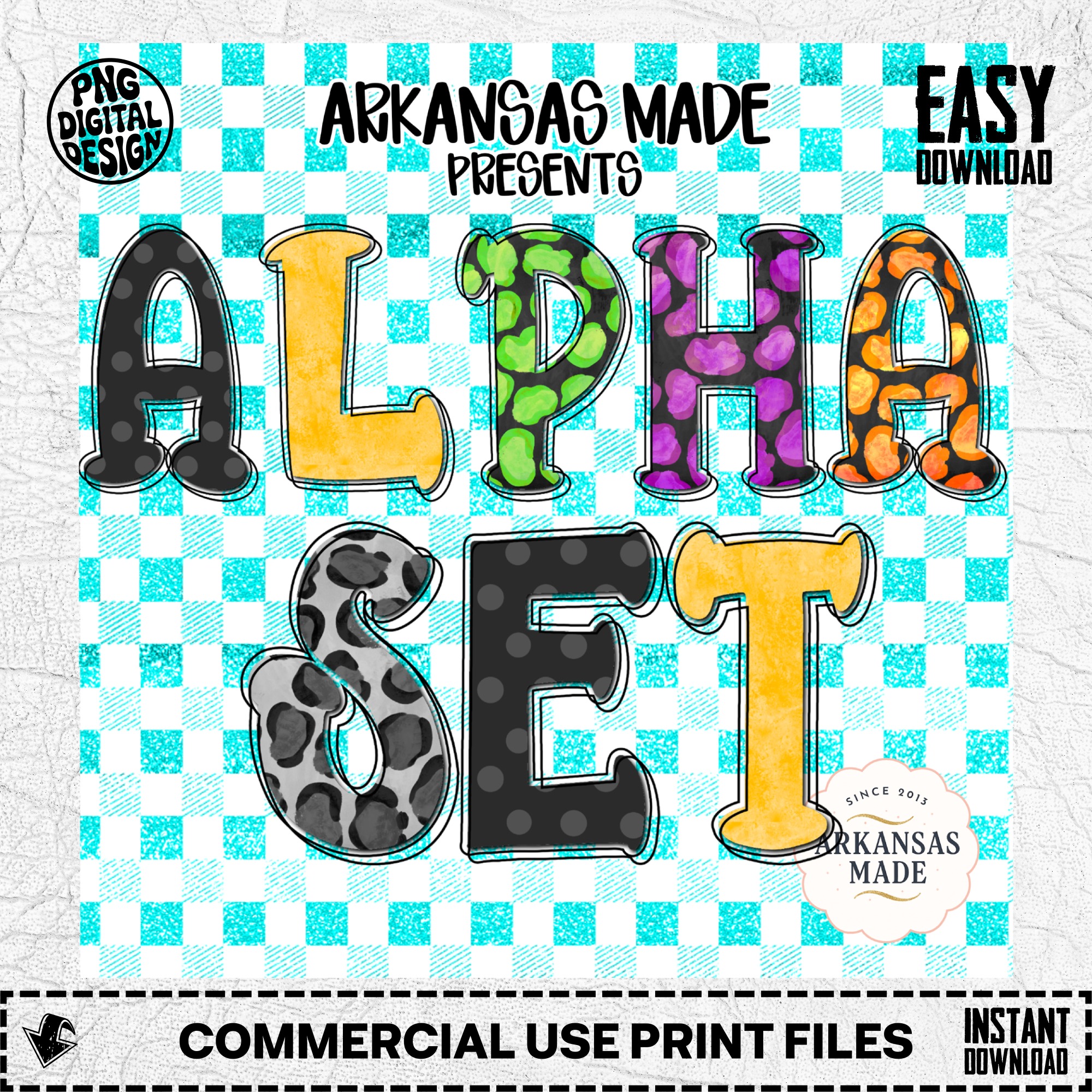
Halloween Alphabet PNGs Bundle. Spooky Leopard Print Letters, Polka Dot Textured Alpha Set. Fall Digital Download Craft Font.
Get ready for a spooky season with our Halloween Alphabet PNGs Bundle! Featuring leopard print, polka dot, and textured letters for all your crafts. Unleash your creativity with this vibrant and fun alpha set, perfect for DIY projects, sublimation, and graphic design. These versatile digital letters are ideal for crafters, small business owners, and anyone making custom shirts, mugs, party invitations, or unique fall decor. Create personalized gifts or spooky home art with ease.